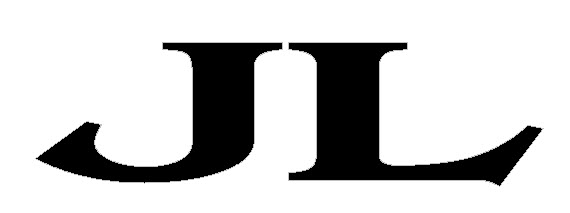
This is a font that was designed for my customers company. I have maintained a website for them for a while and just recently been informed that I have their log all messed up. As it turns out, My J doesn’t lead out the same way as the L like in this picture. Does anyone know what font may have been used for this?
One candidate could be: Bangle Extended Bold
Extend the “toes” of the L and extend the “heel” of the J could get close. Add other stuff as needed.
I think if you simply expand the entire glyphs horizontally in an image program that you might have a match, not just the toes.
Hmm like this?
The angle’s not quite right, is it?
Probably would be if we had started with the right font …